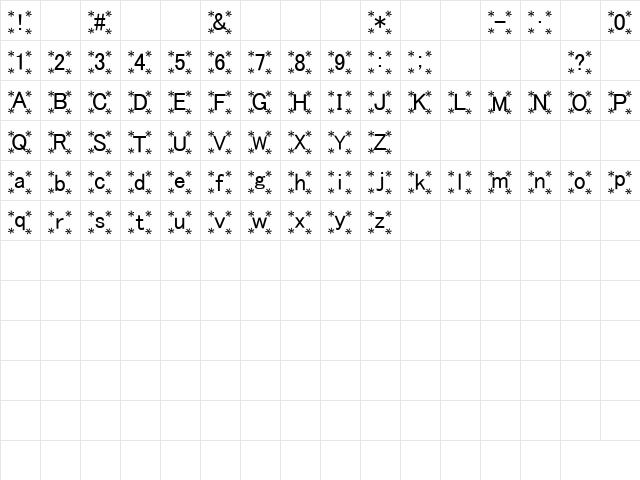
hana Font Regular
Design Context for hana Font
hana Font is a composed and adaptable typeface that performs quietly and consistently across a wide range of design contexts.